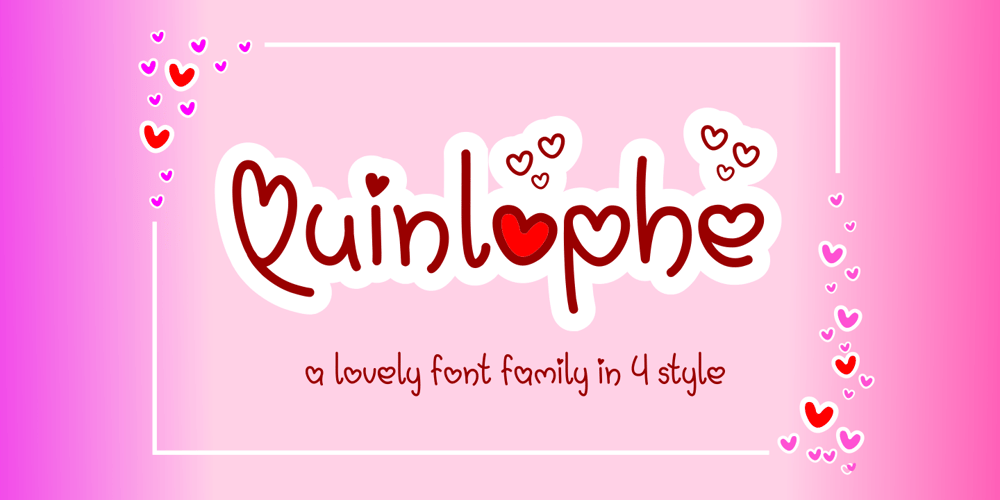
Quinlophe
Quinlophe font
Quinlophe Font Family was designed by Ahmad Zulfikar Ali and published by ZetDesign. Quinlophe contains 3 styles and family package options. Quinlophe is a cute font with the theme of romance, and is made by paying attention to the shape and anatomy of the letters so as to produce unique and beautiful letter characters.